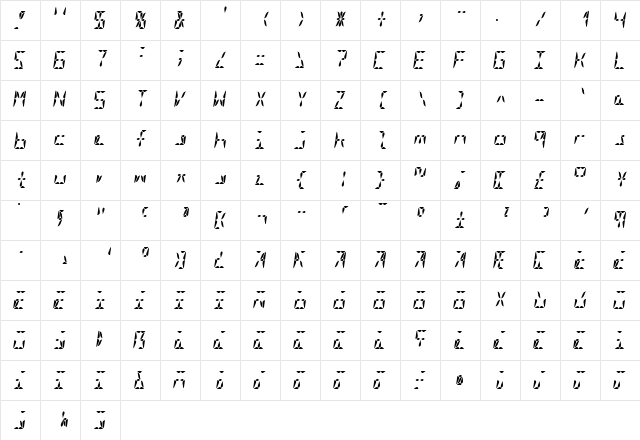
Segment16A Bold Italic
| Designer | Daniel Wikholm |
Design Context for Segment16A Typeface
Segment16A takes a measured approach to typography — its balanced proportions and neutral character make it a reliable workhorse for both digital and print work. Its italic angle brings a sense of urgency and motion to the letterforms. Its bold stroke weight gives it real presence on the page.